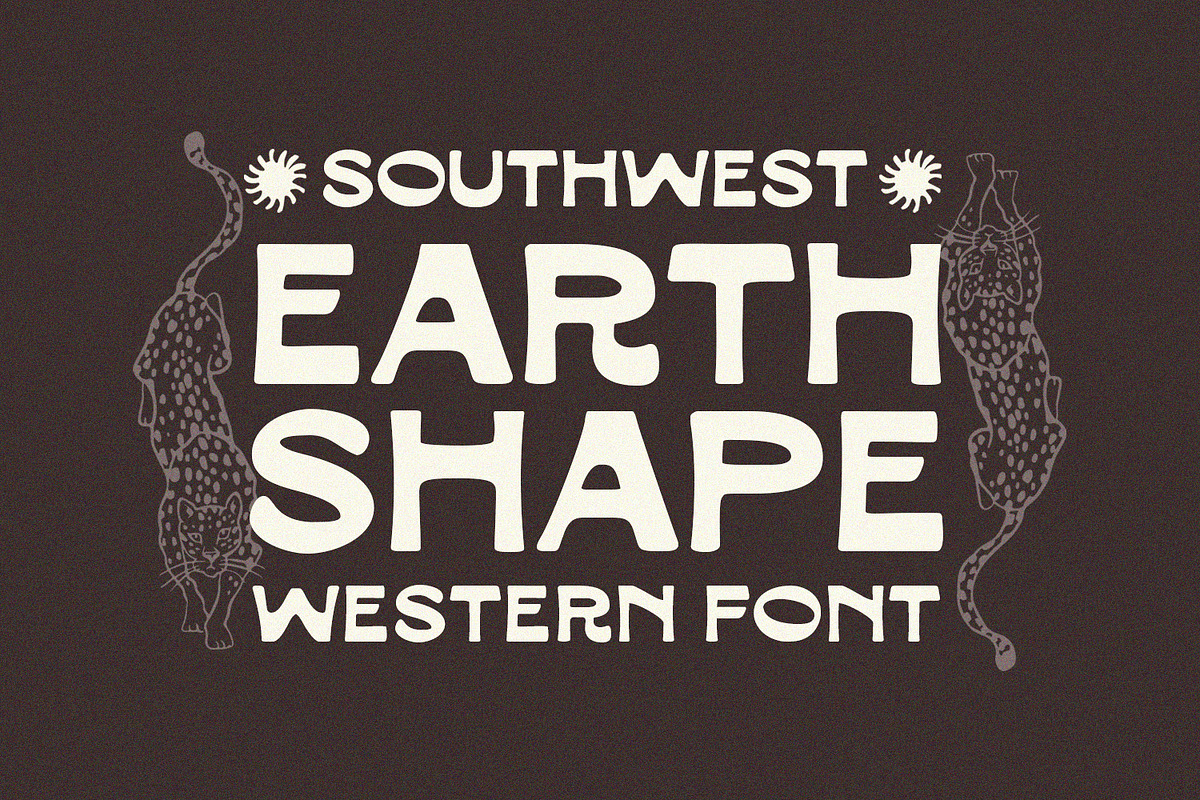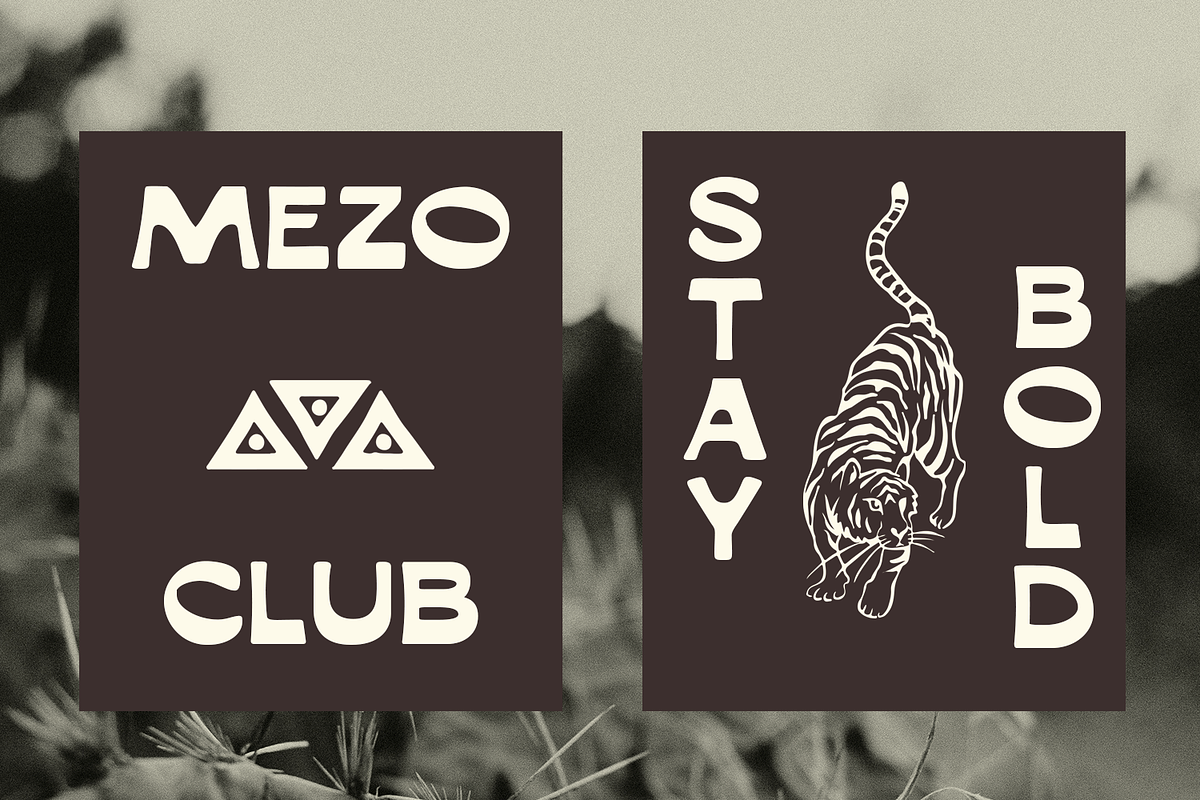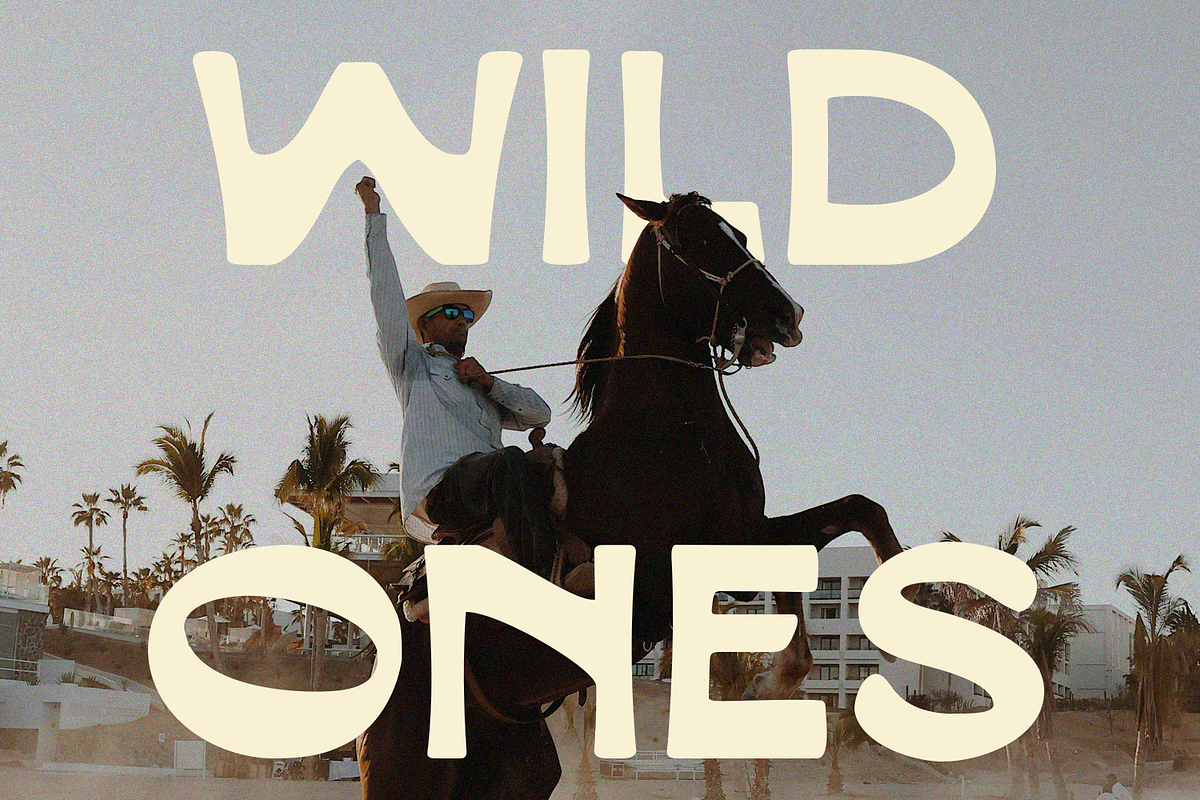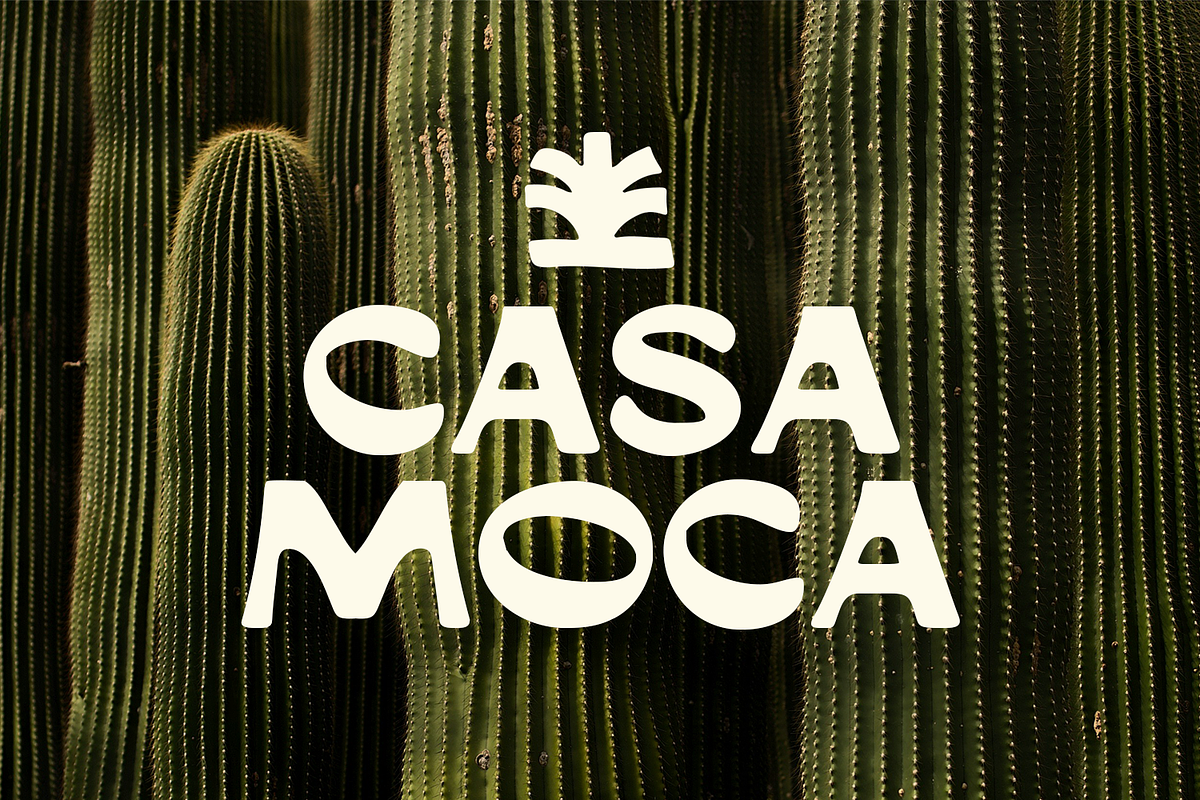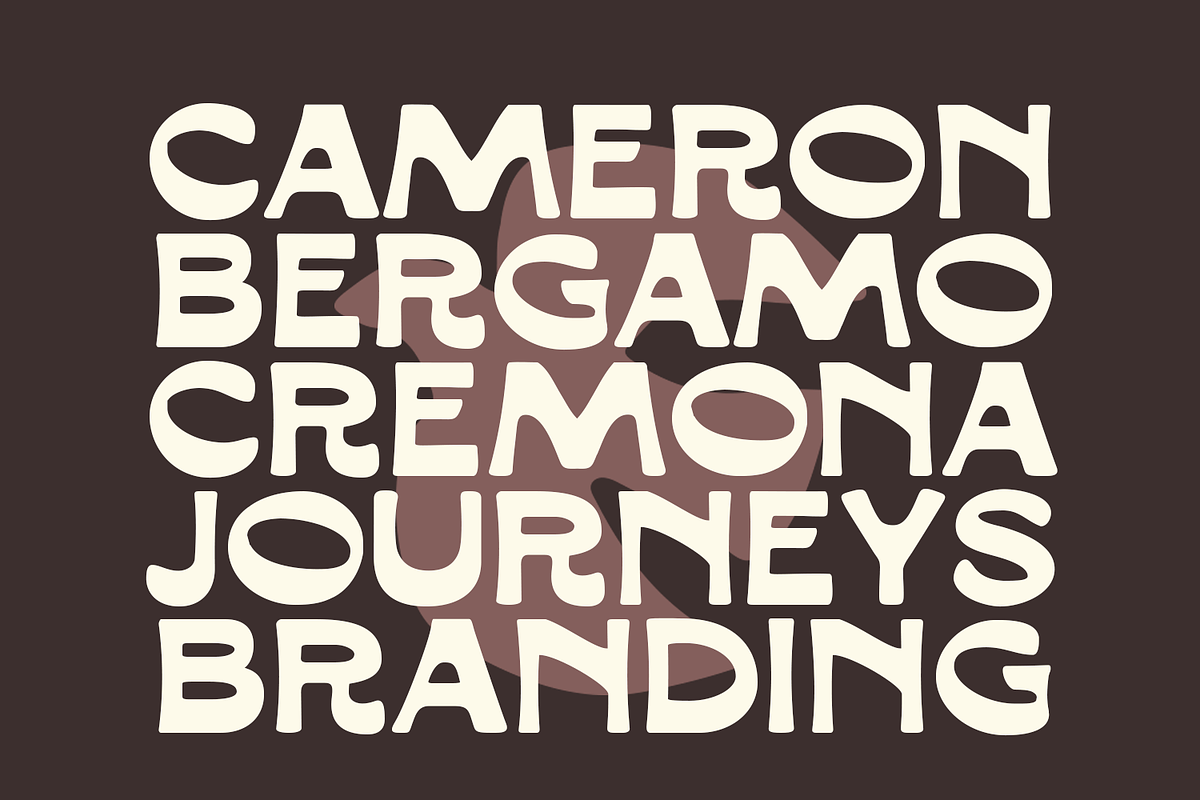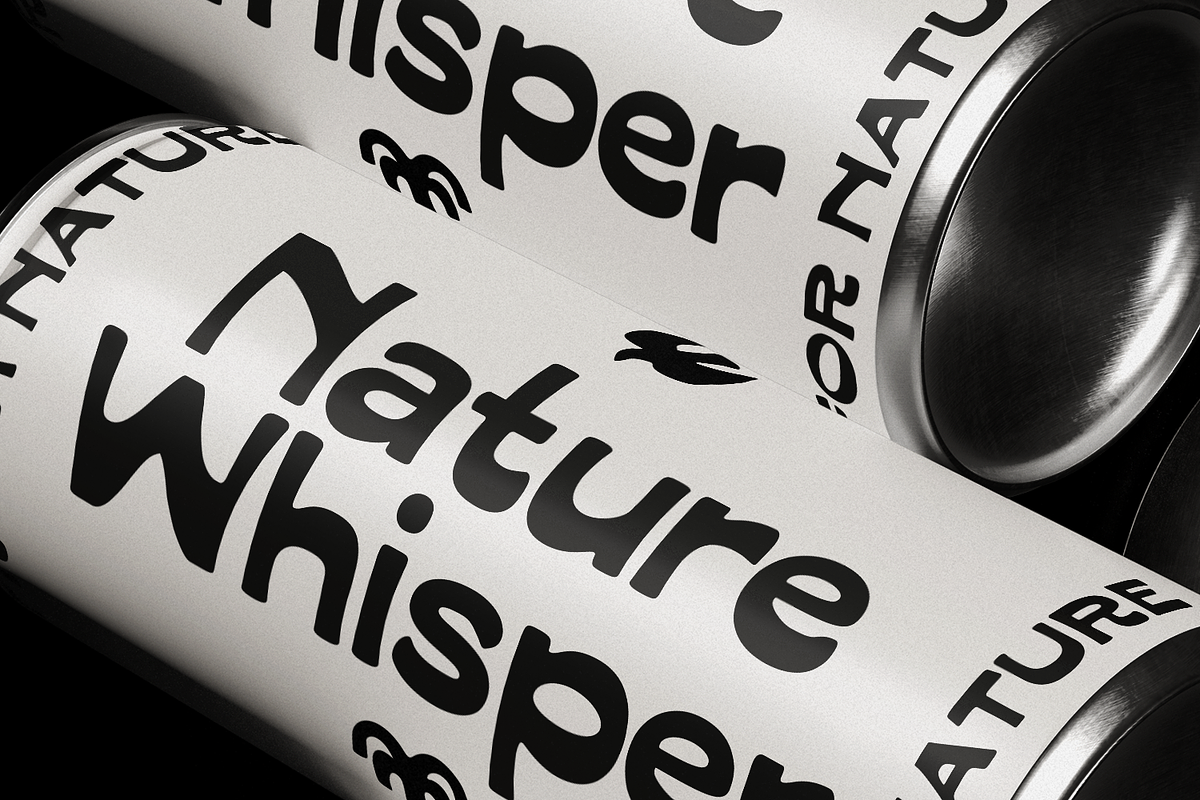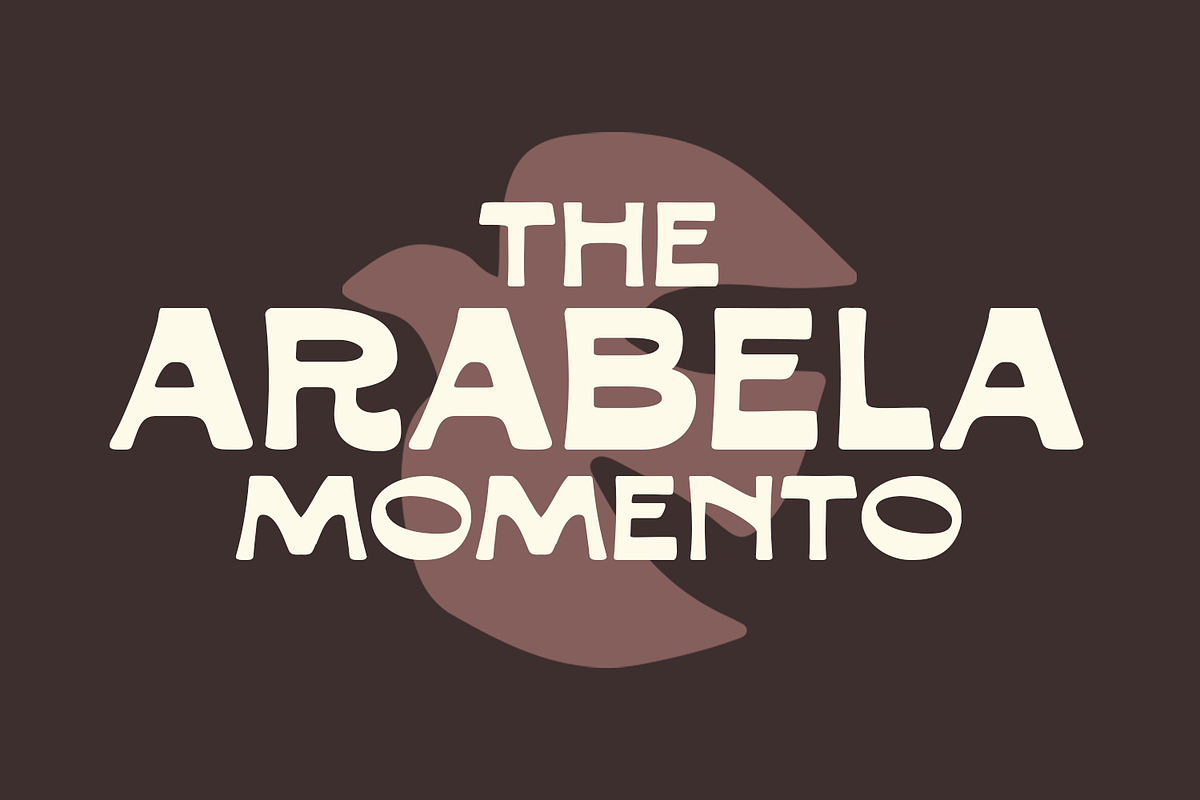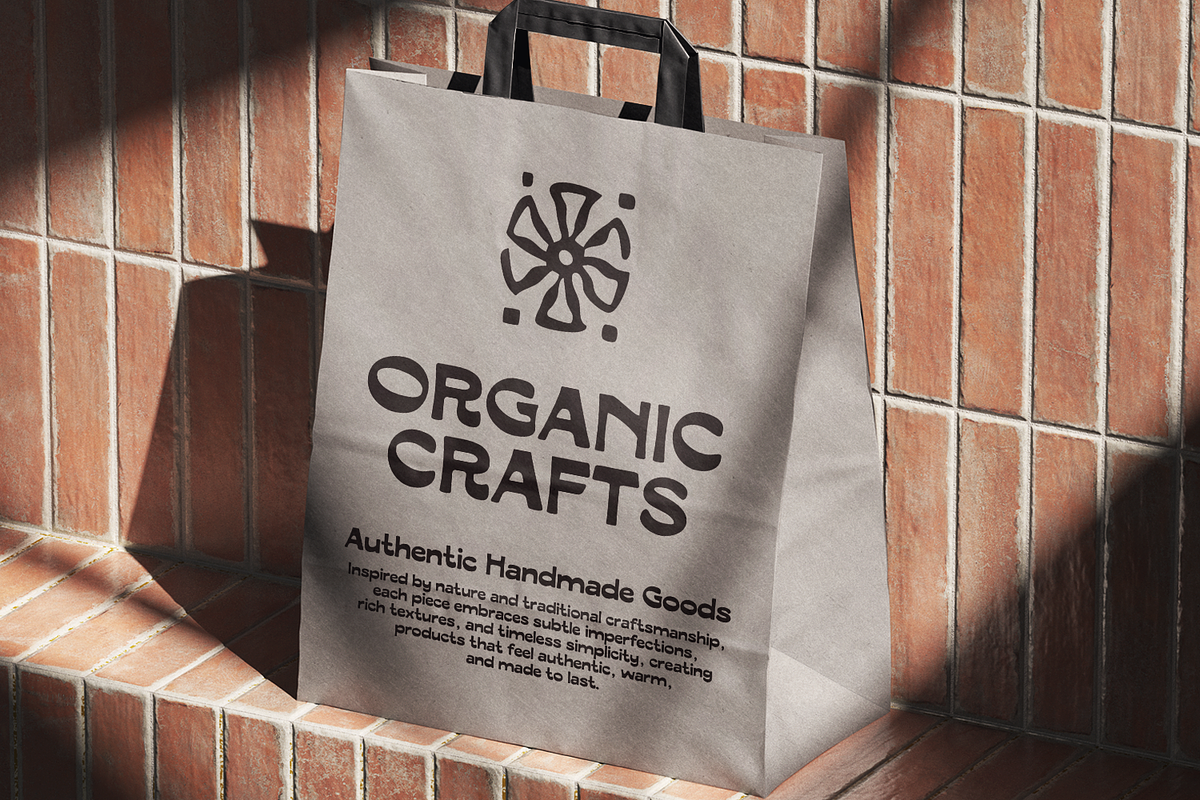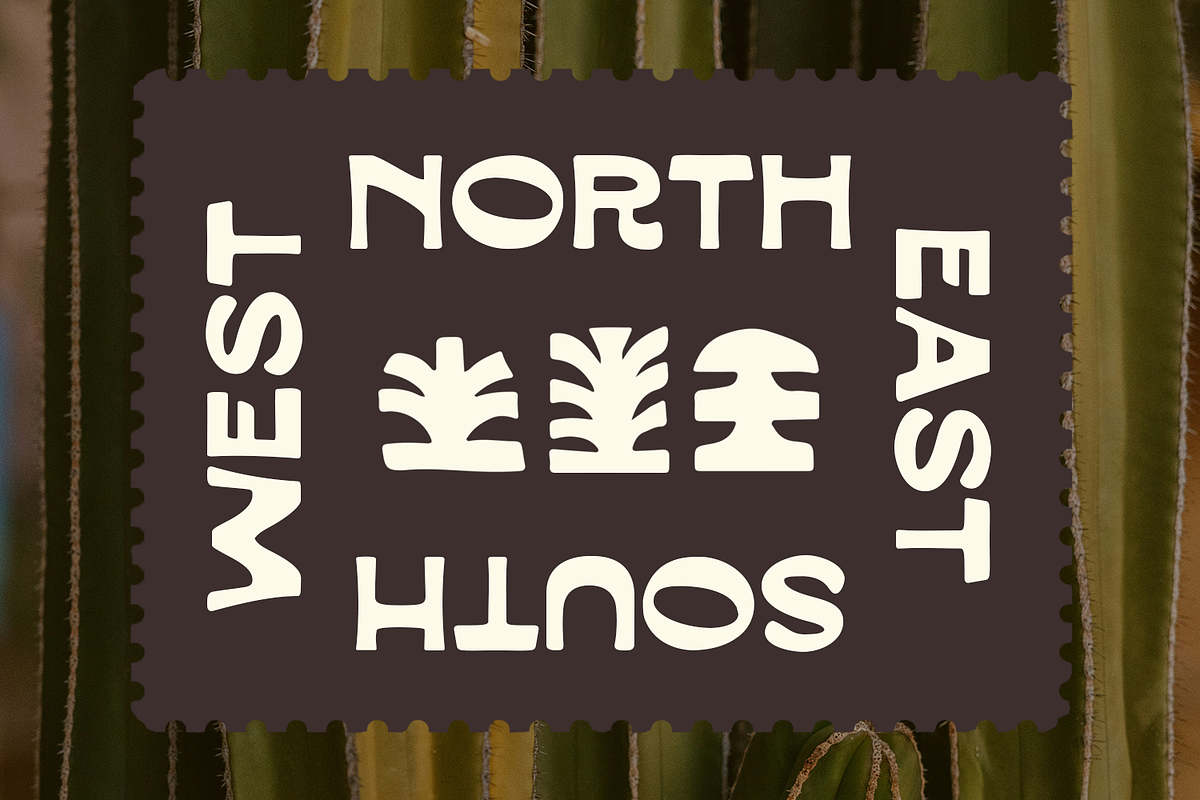
Earth Shape Southwestern Font
Introducing Earth Shape, a bold Southwestern display font with chunky shapes, playful curves, and a warm handcrafted feel. It brings a little desert, vintage, and Western character to your designs—perfect for posters, apparel, logos, packaging, signage, and branding. It includes uppercase, lowercase, numerals, punctuation and multilingual Support.
Made for designs that need personality without feeling too polished or generic. Pair it with vintage textures, illustrations, or simple layouts for an authentic Southwestern look.